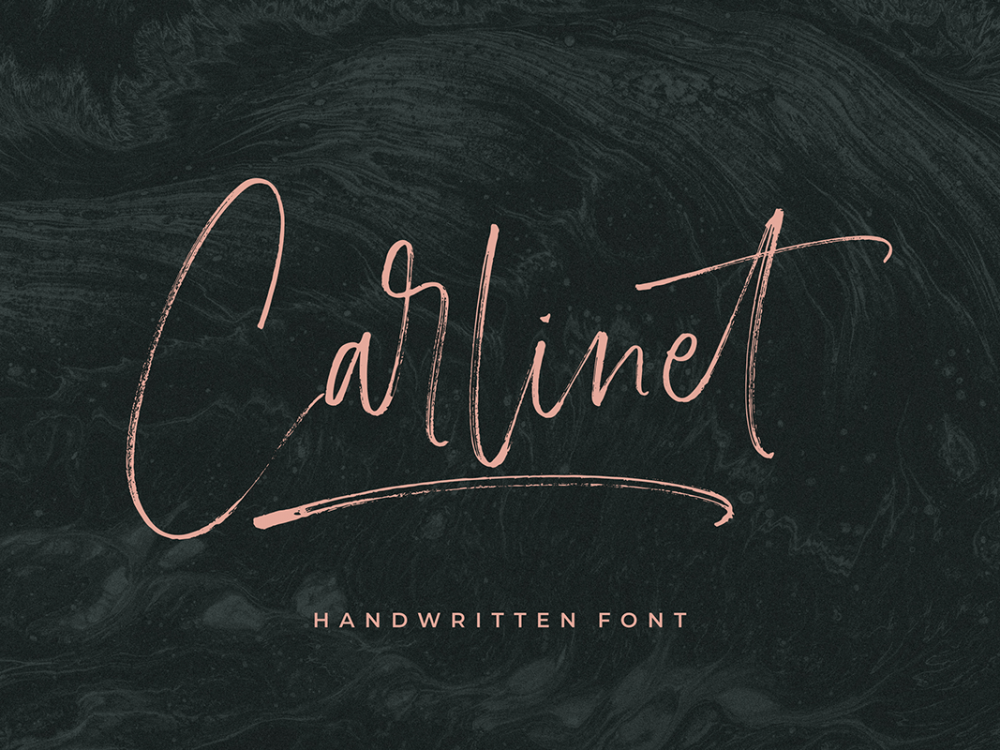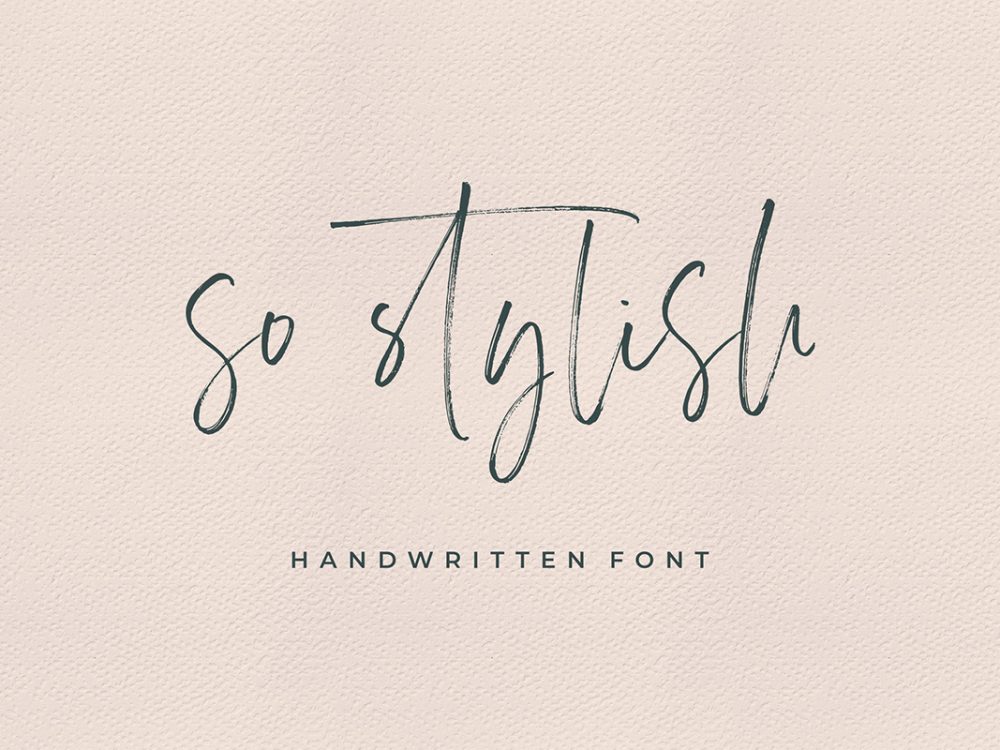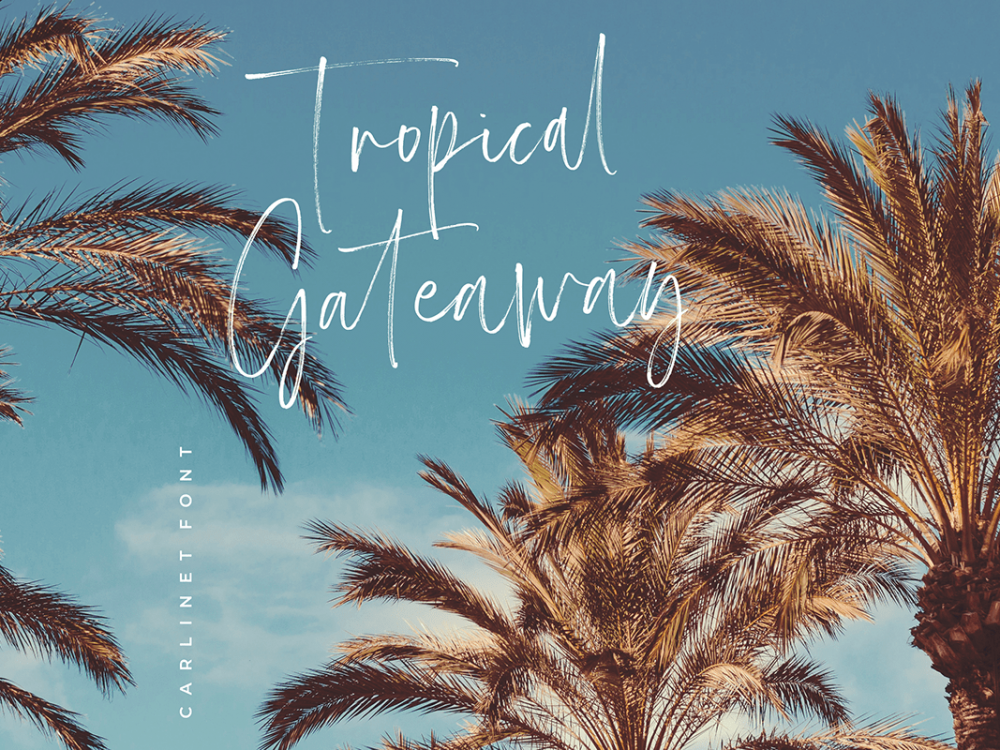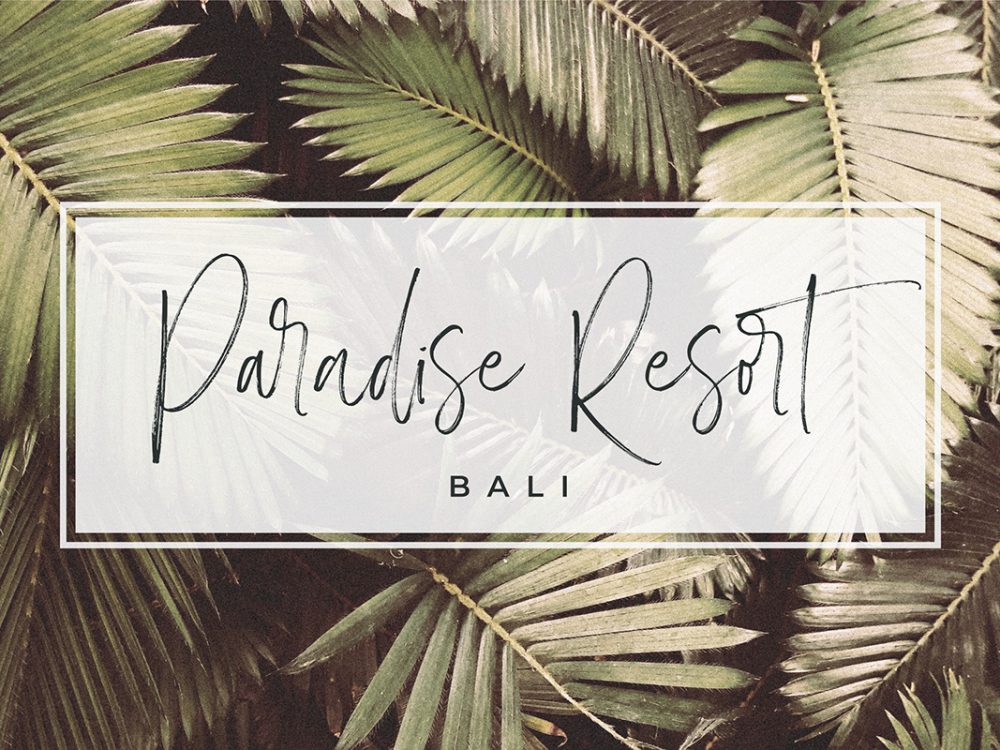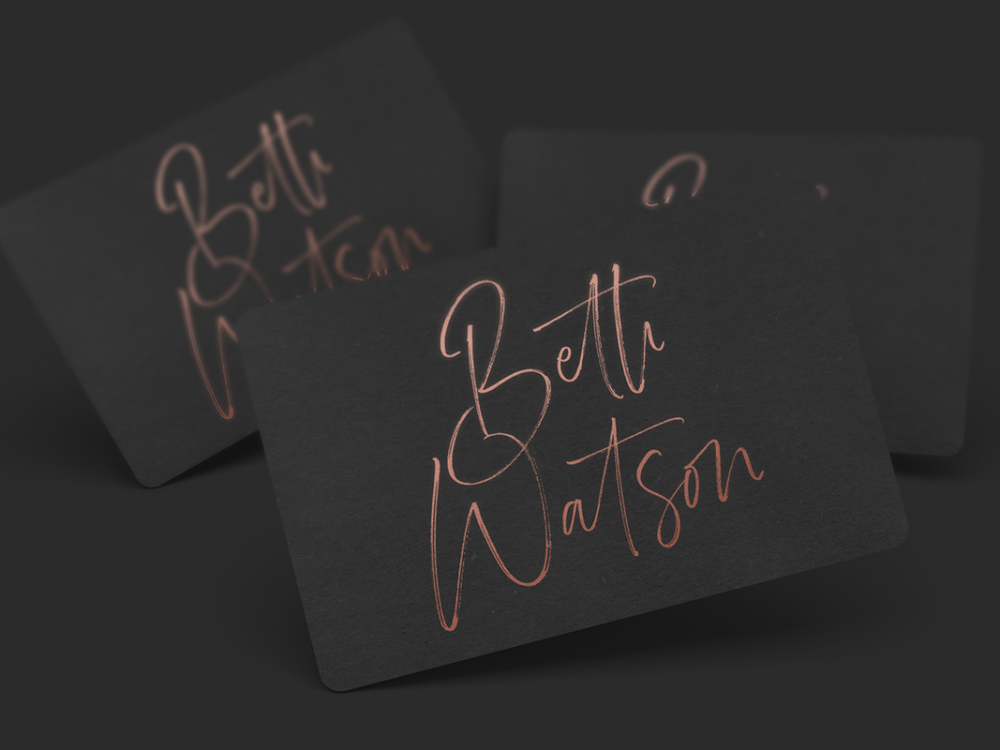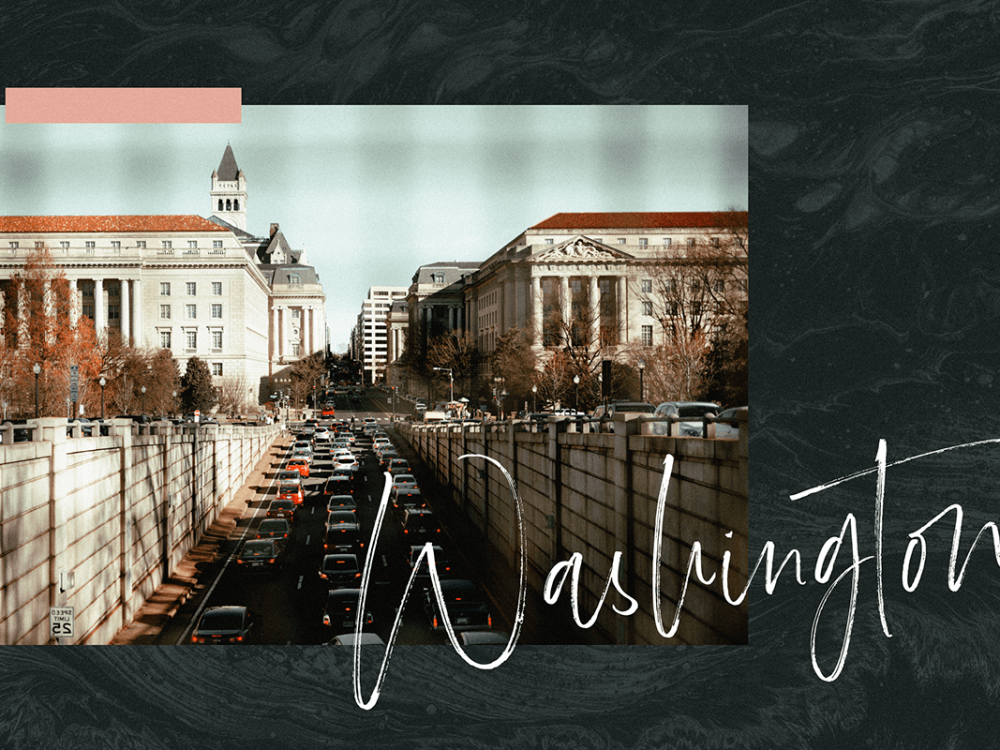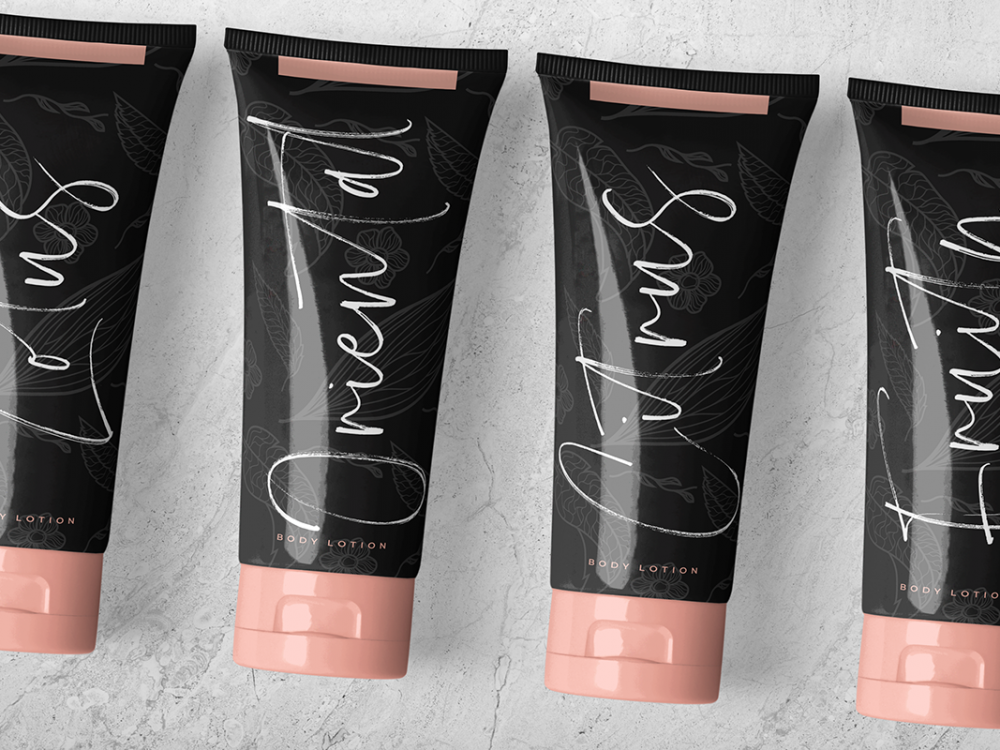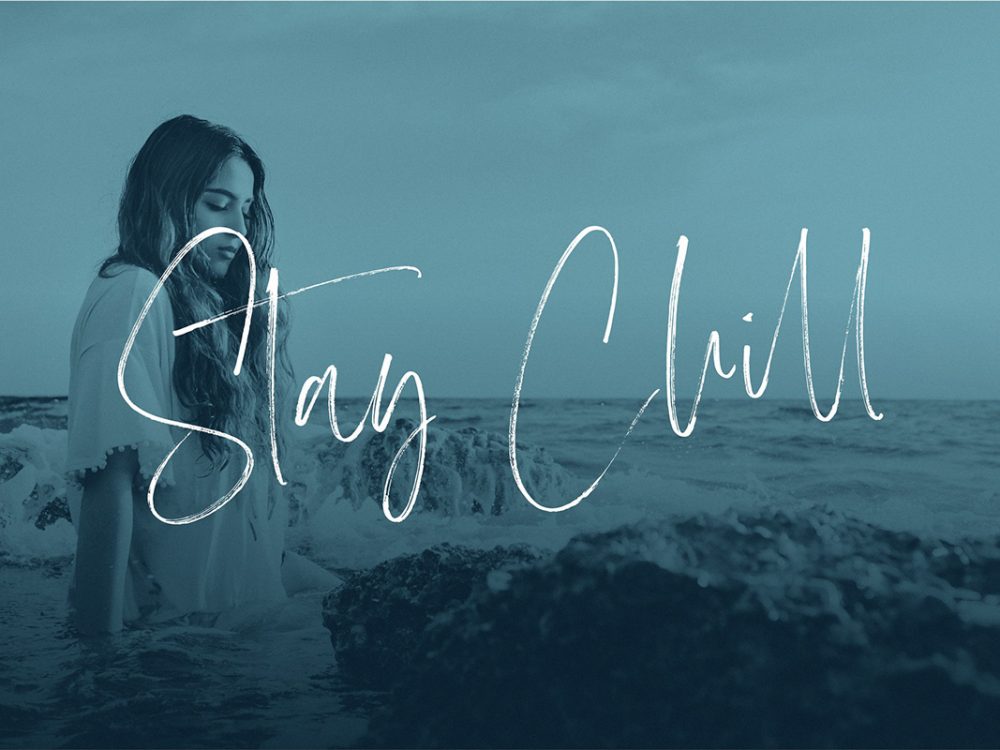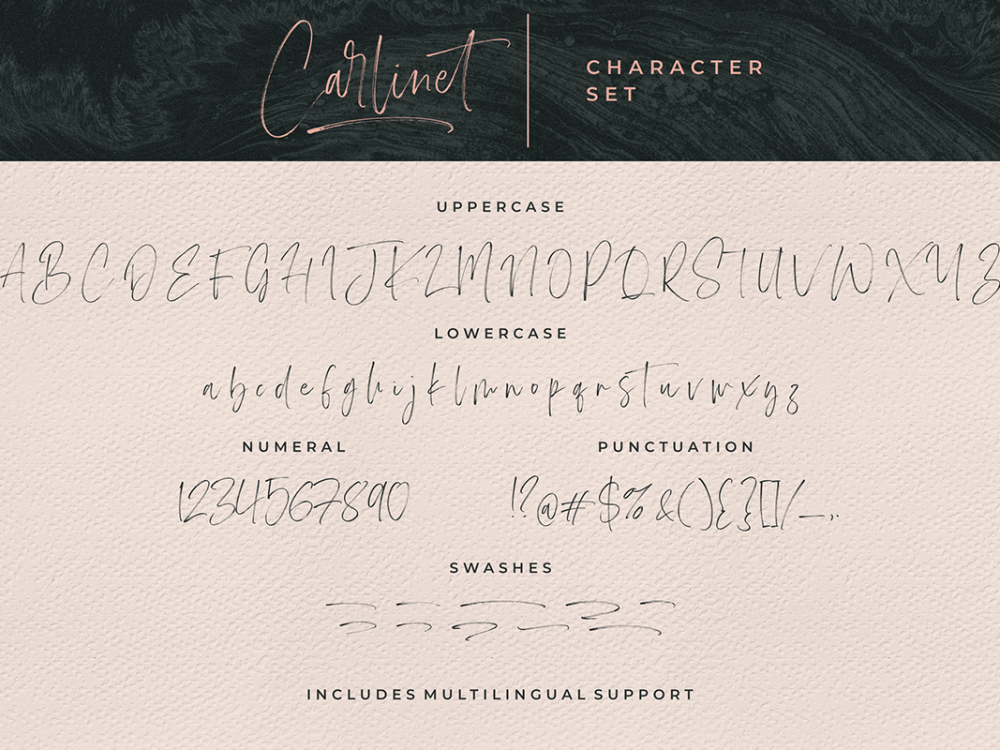
Carlinet Handwritten Font
Carlinet Handwritten Font is an unusual interesting modern handwritten font that stands out for its elegant style and thin lines. This font mimics writing with a brush and is perfect for a variety of design projects such as posters, wedding invitations, cards, branding, flyers, prints, and more. If you wish to access more features and use them for commercial work please but the full version.